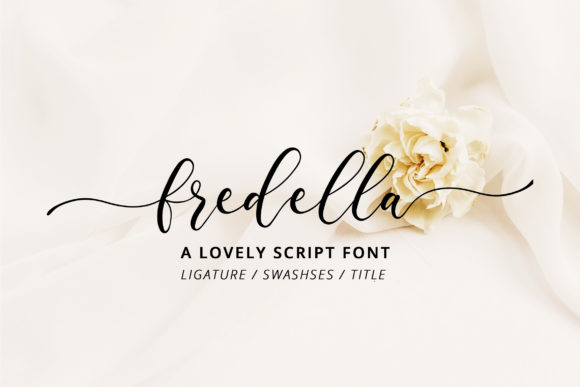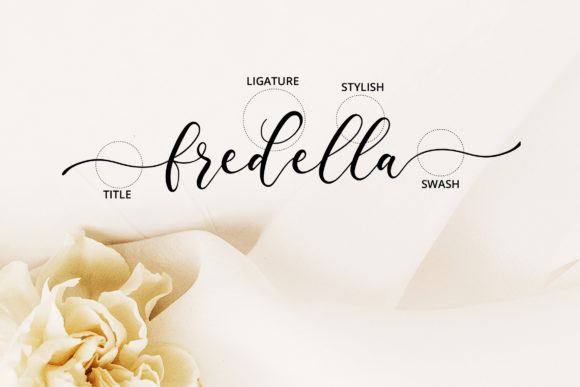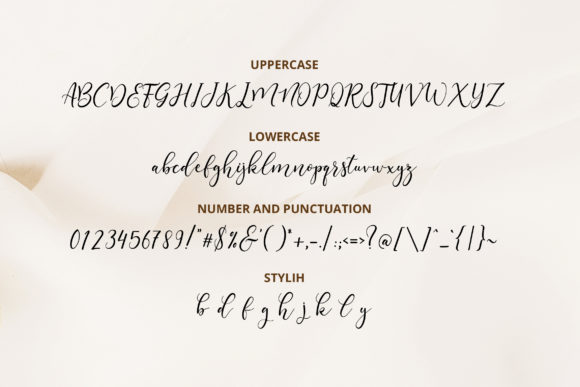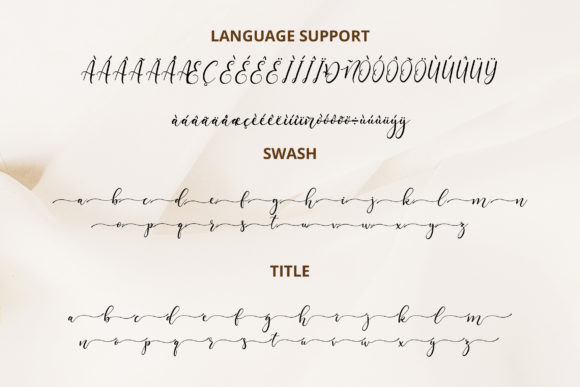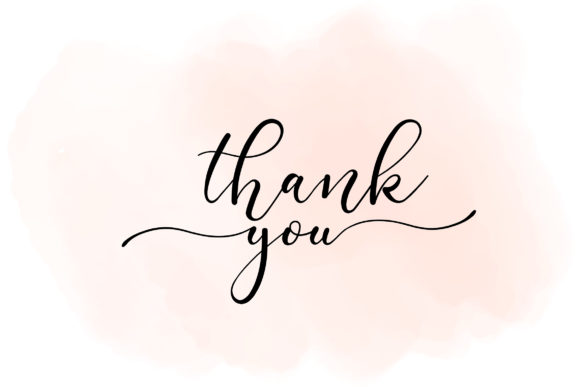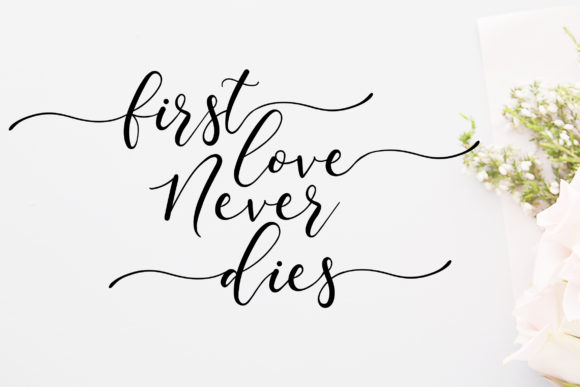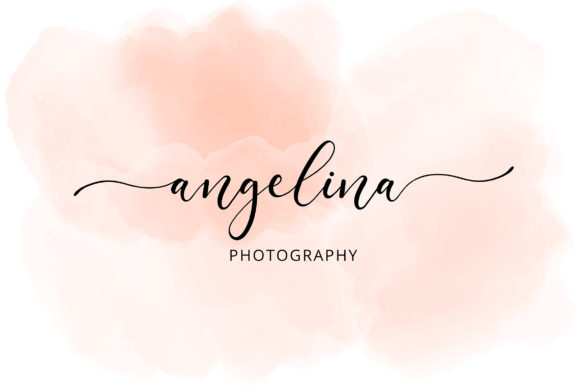
Fredella Font
About Fredella Font
Fredella combines stunning swashes and light letters into one truly gorgeous script. Ignite your creativity with its versatile charm!